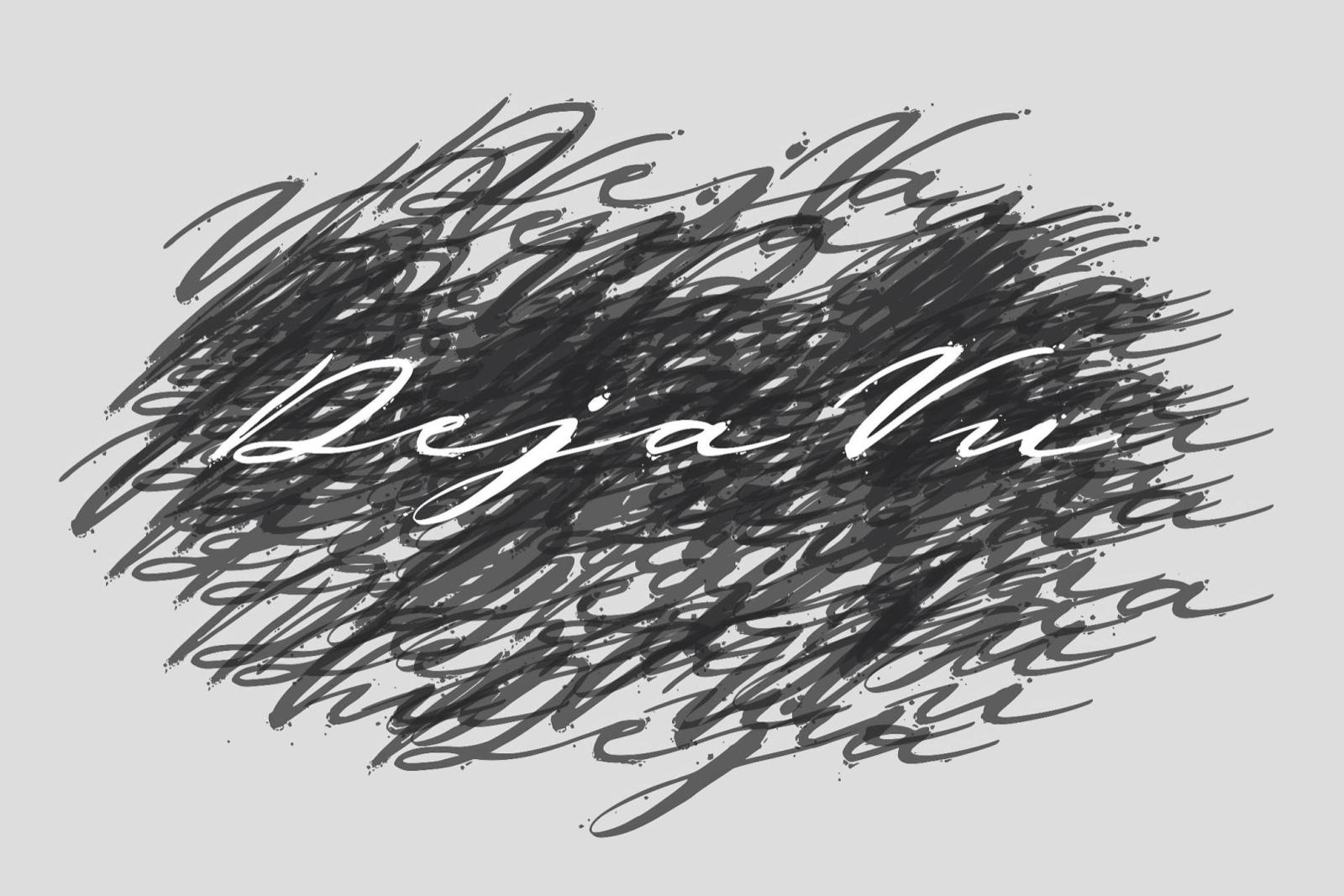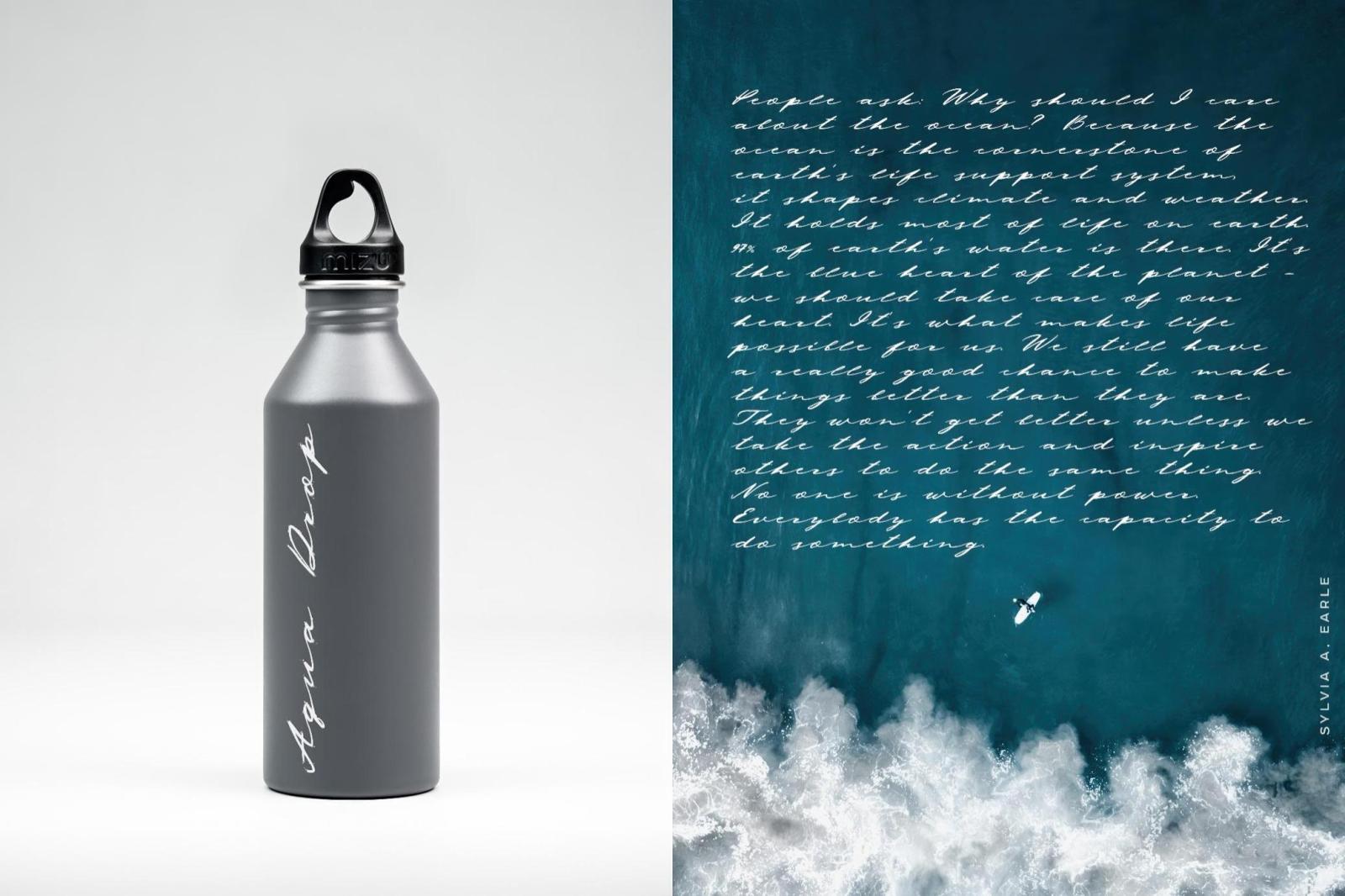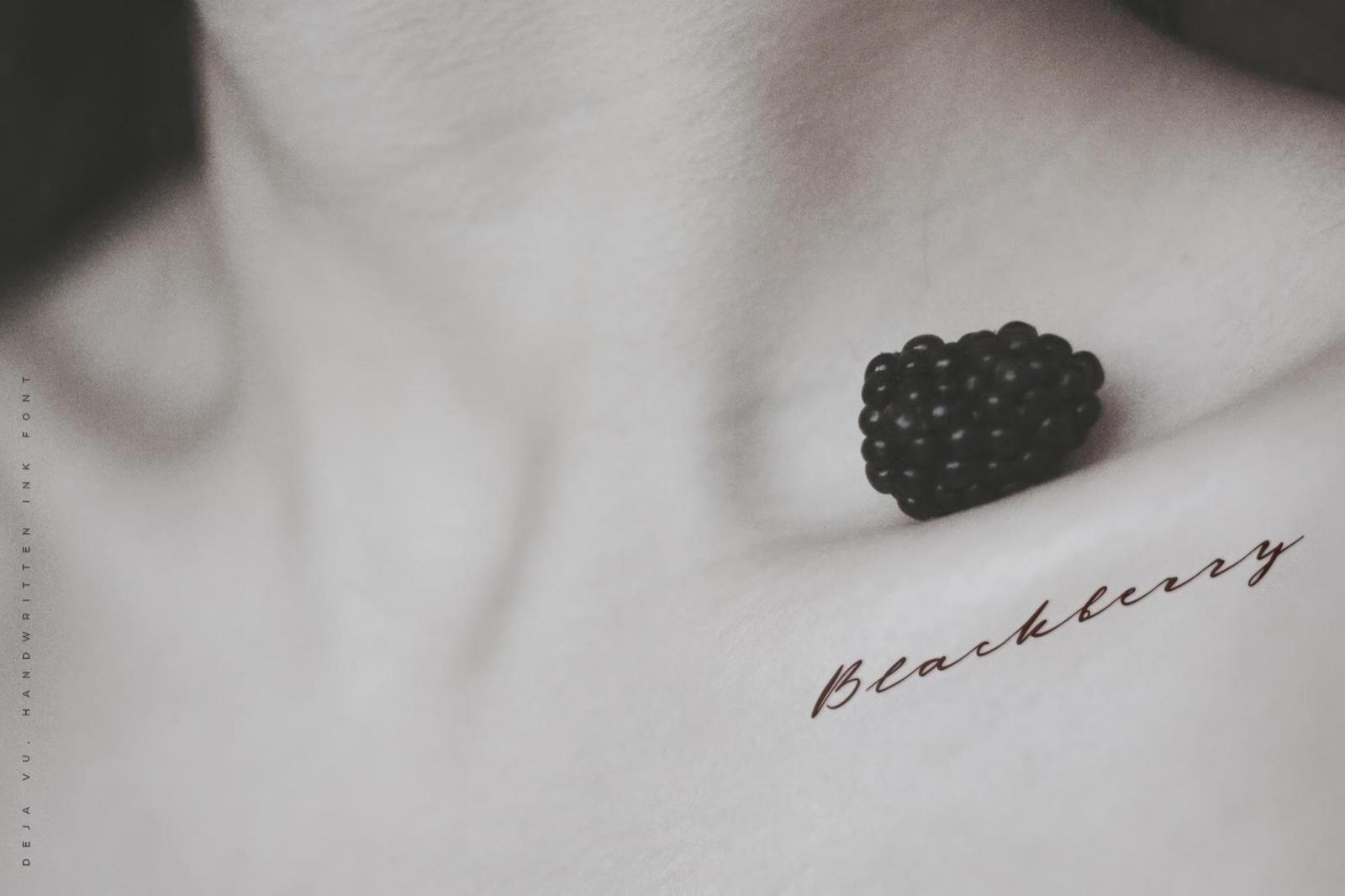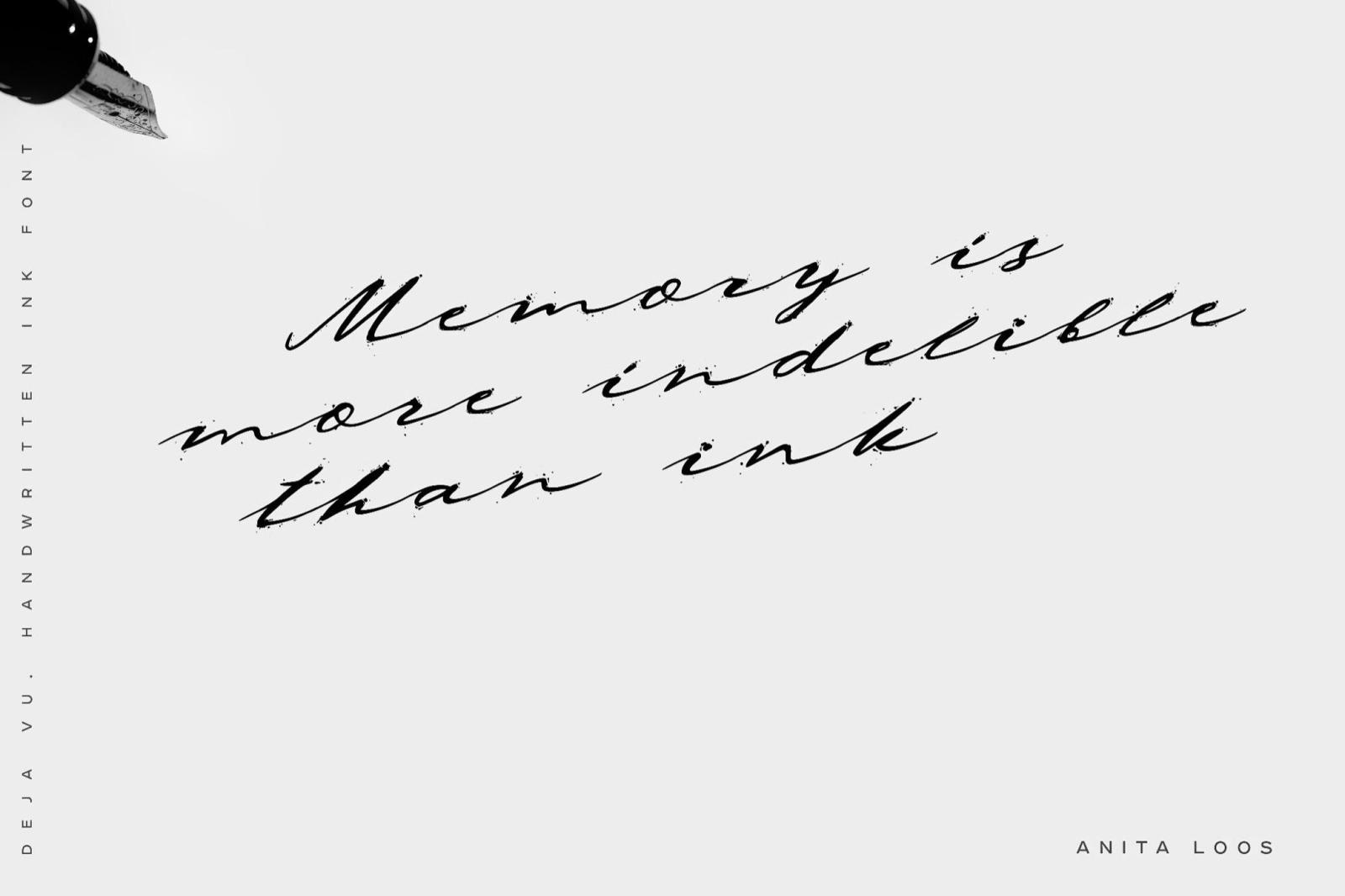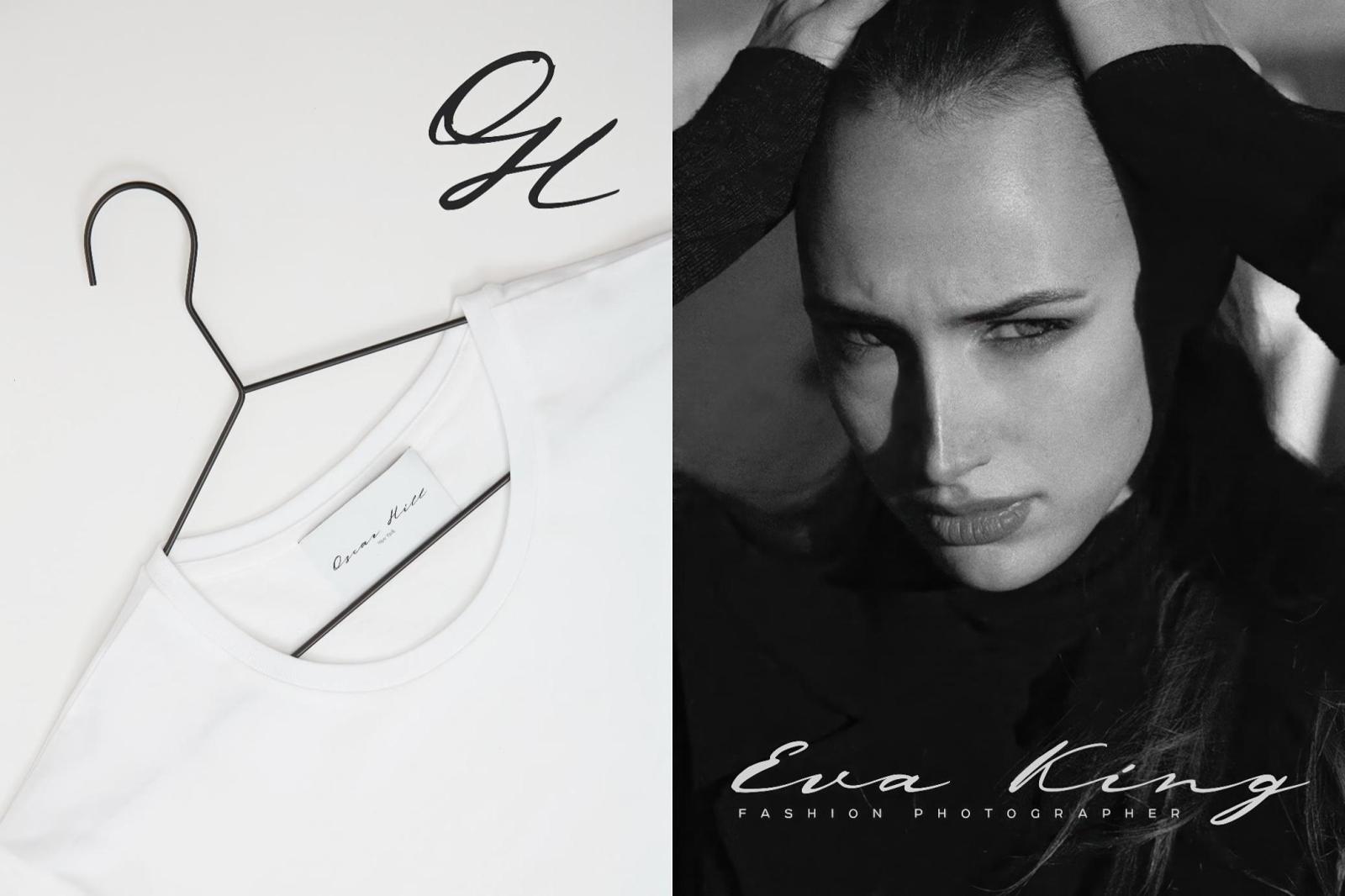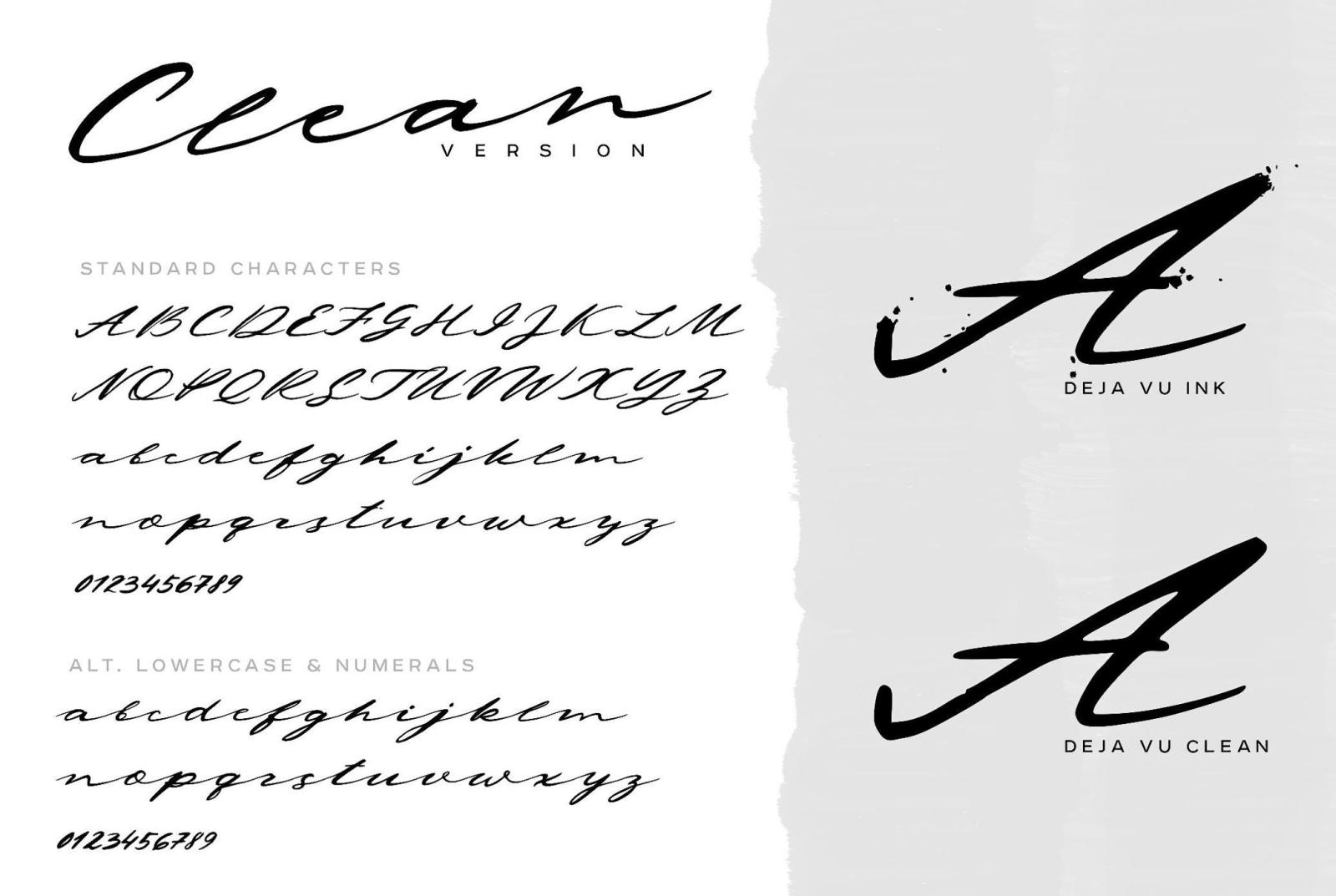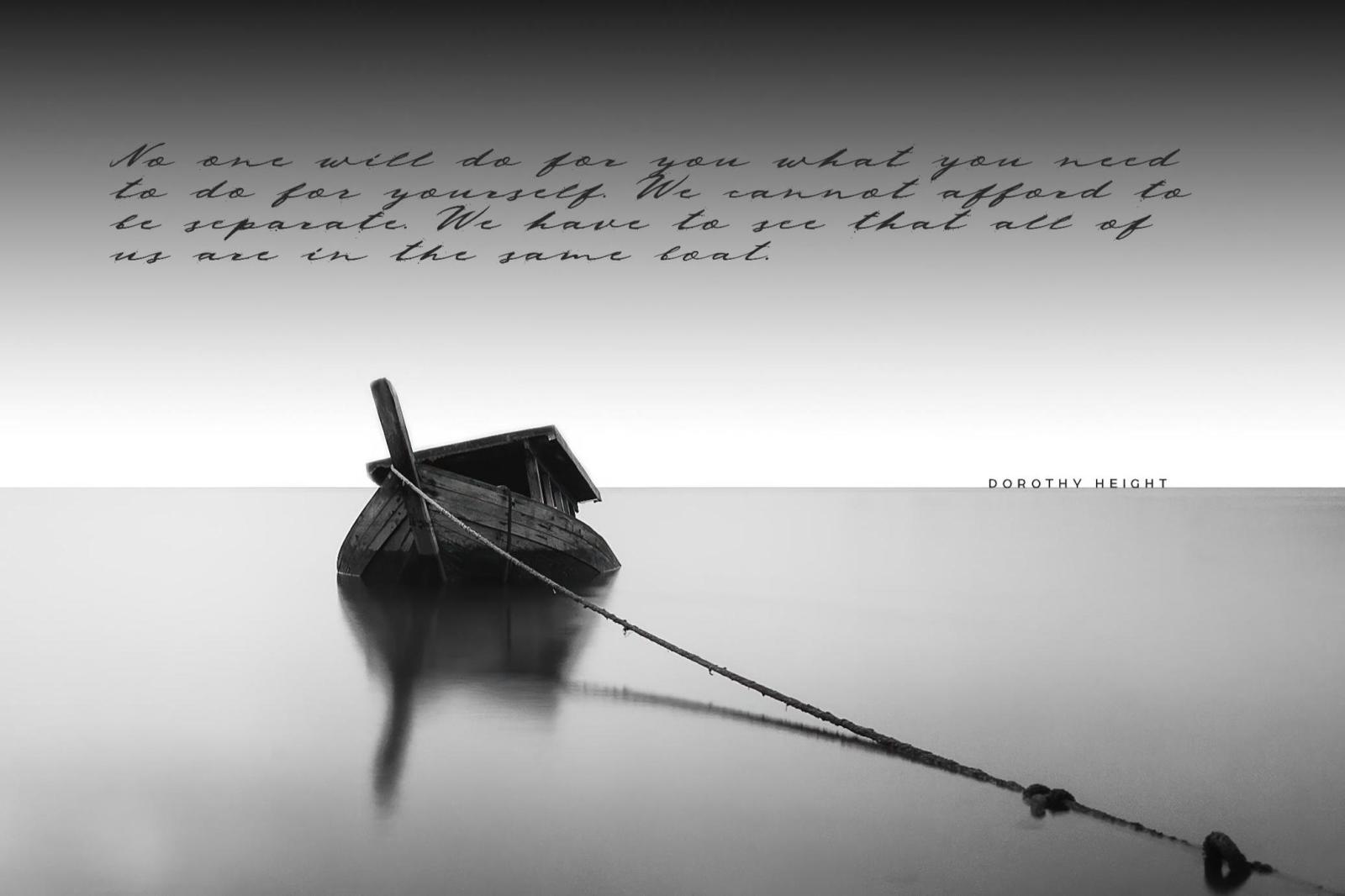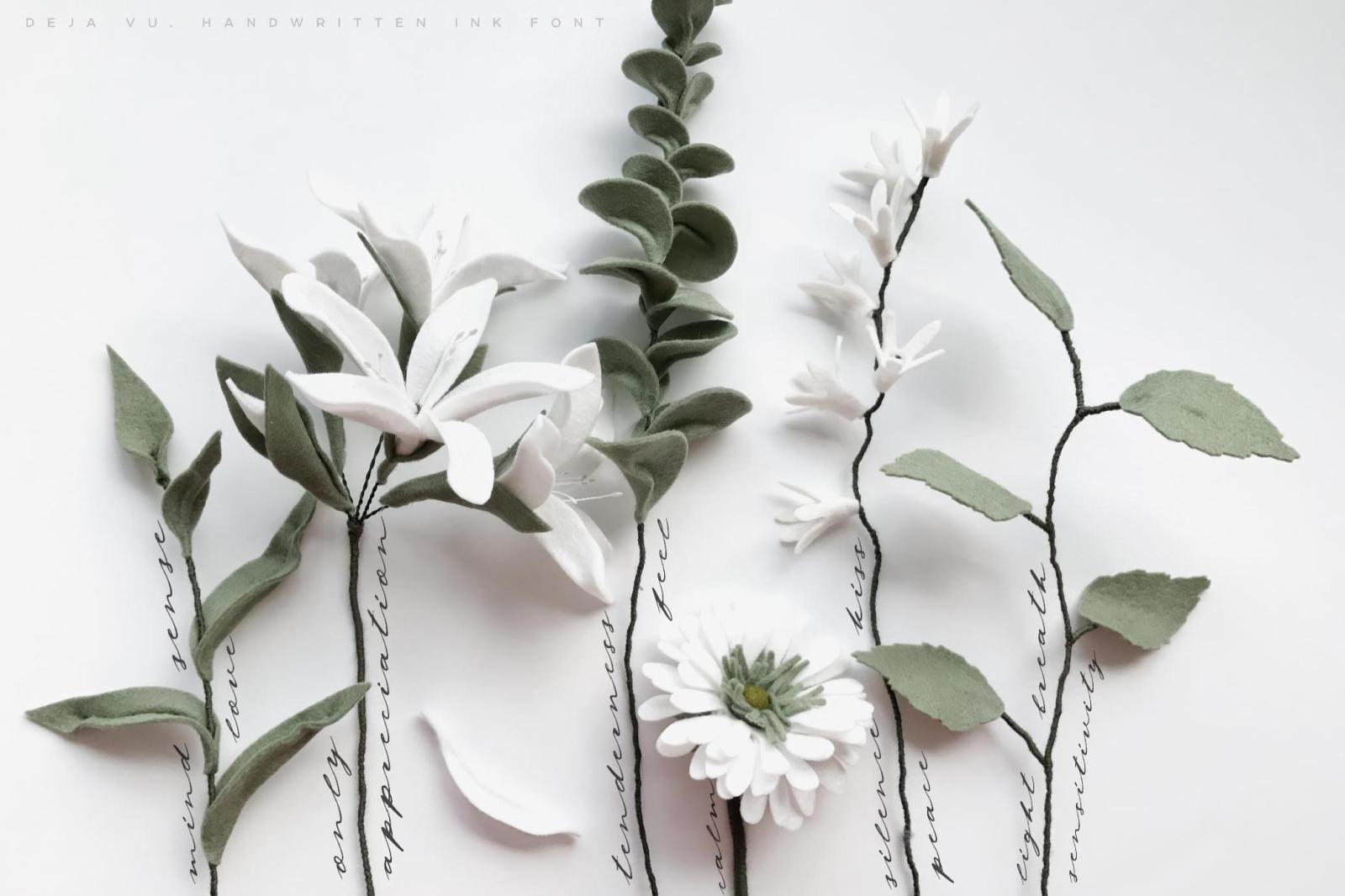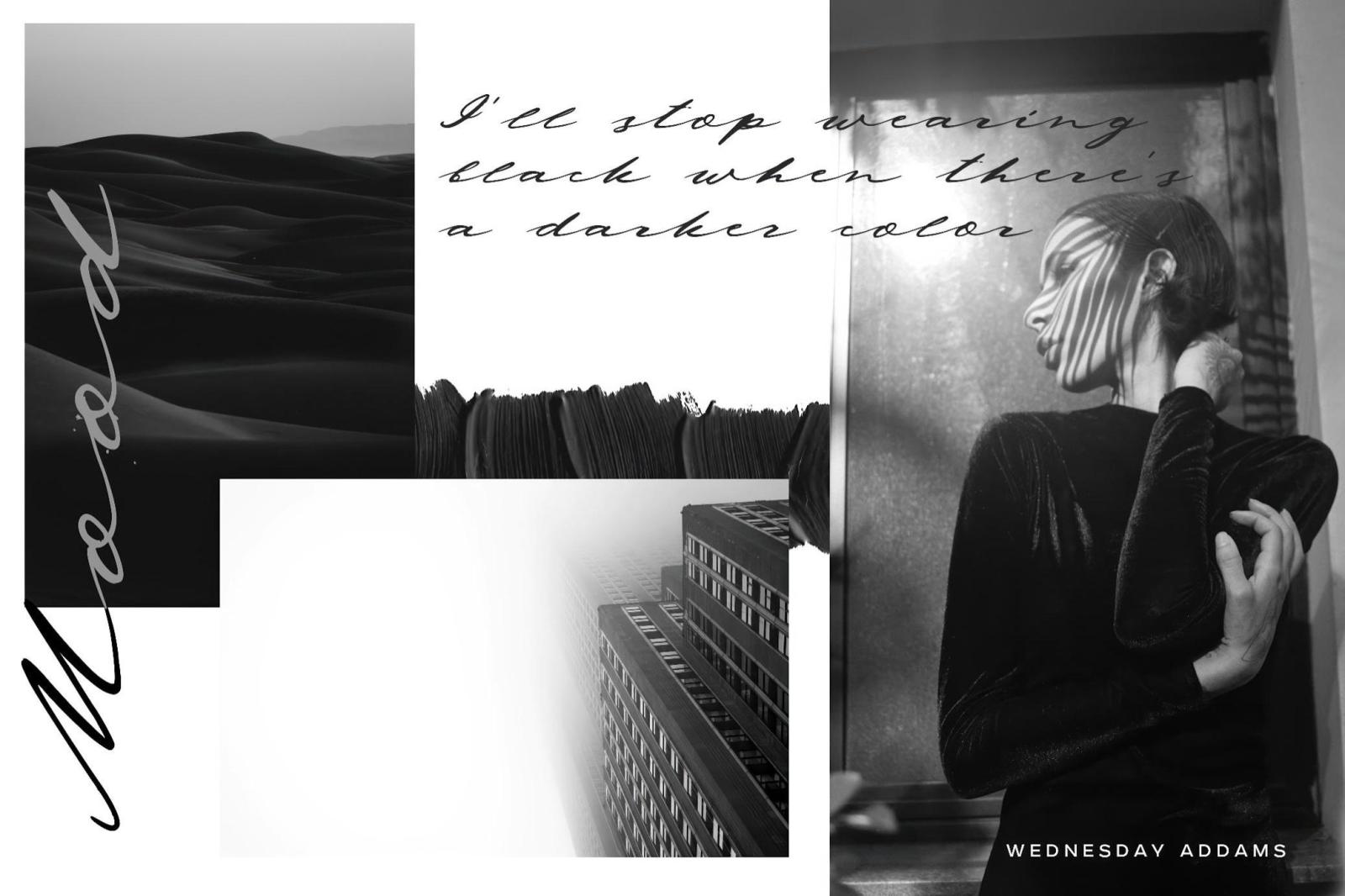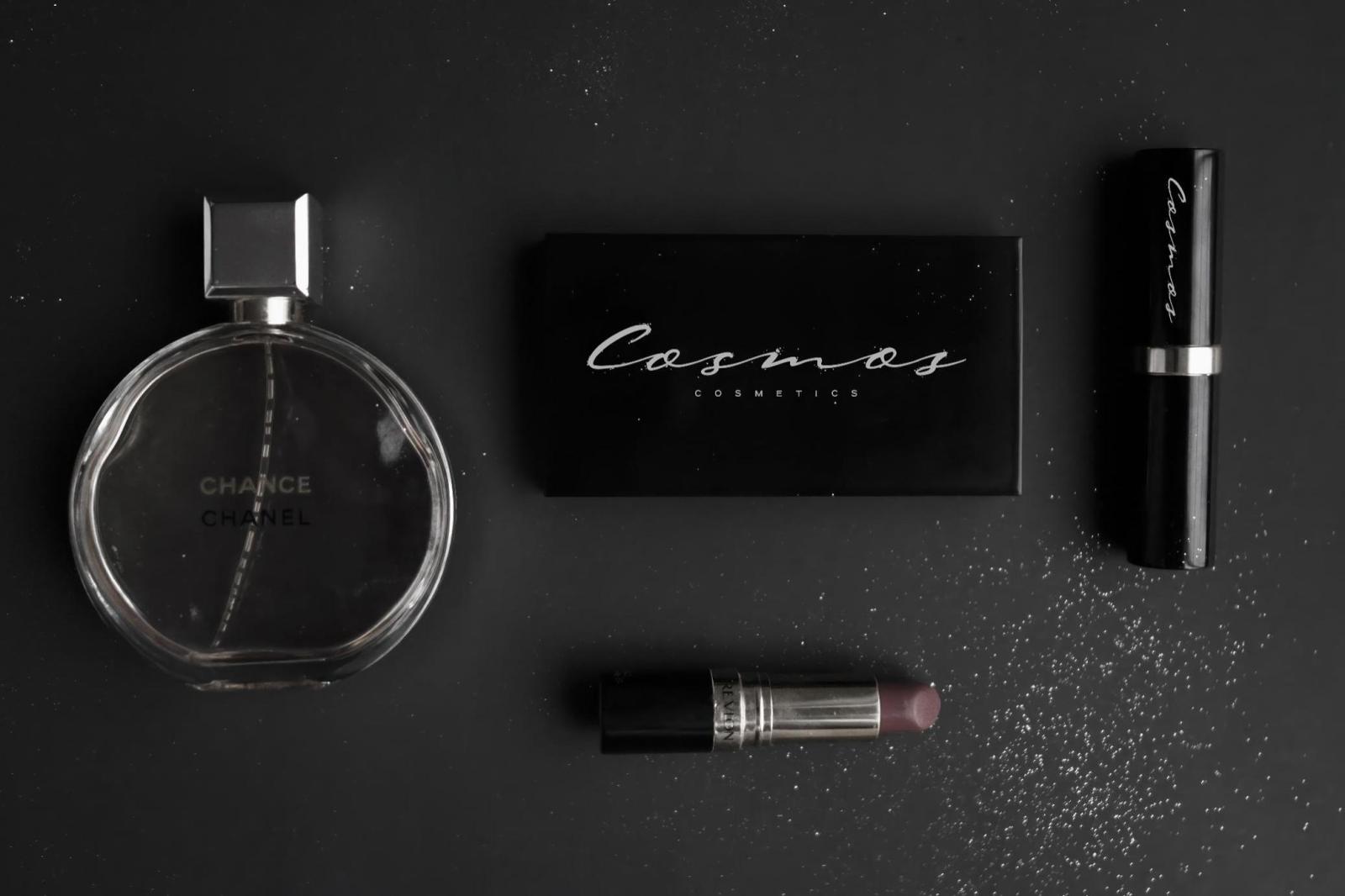
Deja-Vu — Handwritten Ink Font
Meet Deja-Vu — an elegant ink font, perfect for those who miss quill-and-ink craftsmanship and those who have never heard of it but still crave subtle typography. It's steeped in the tradition of vintage calligraphy but doesn't feel outdated even for a second. Deja-Vu features two styles: ink with distinct splatters and clean. Both styles provide a *complete character set, multilingual support, and a full set of lowercase alternates. Despite handwritten fonts not being suited for everyday use, you can feature this one in various branding projects, logos, monograms, signatures, quotes, magazines, and more. Just make sure you pair it with a plain sans serif.